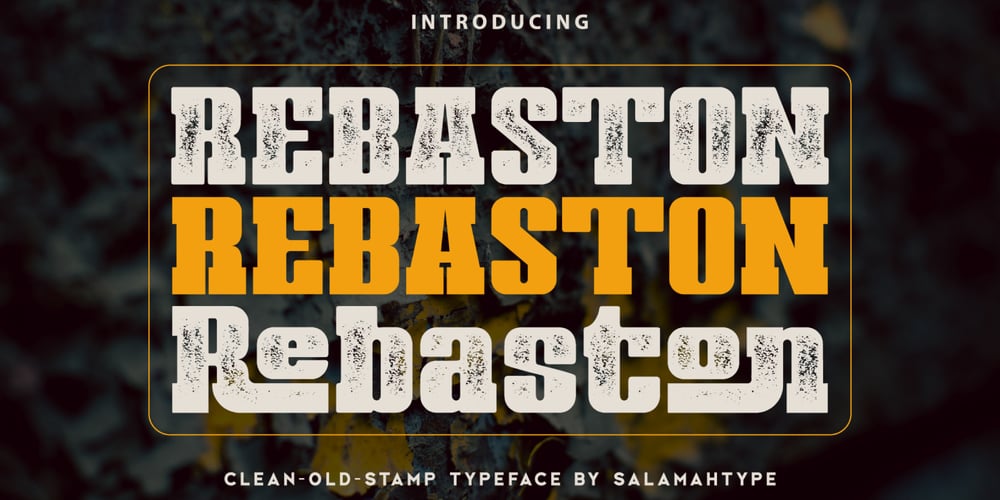
Rebaston Font Family was designed by Aswangga Sadike and published by Salamahtype. Rebaston contains 6 styles and family package options. Rebaston is a display serif typeface with 40 ligatures and comes with a stamp style, which makes it perfect for developing logos and meeting a variety of branding needs. Its special stamp style gives your design a unique and classic touch.Features : Uppercase and lowercase Punctuation and symbols Multilingual support 40 Ligatures Enjoy our font! Thank you.